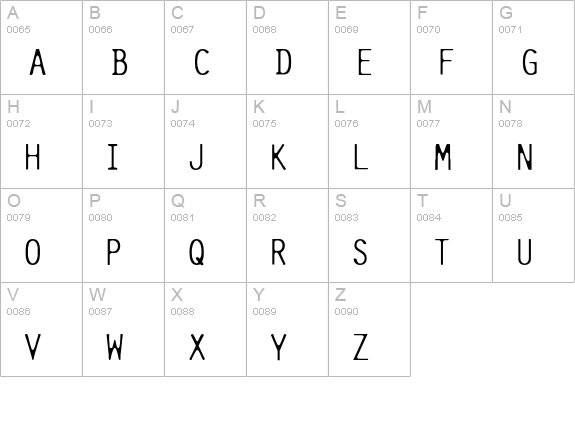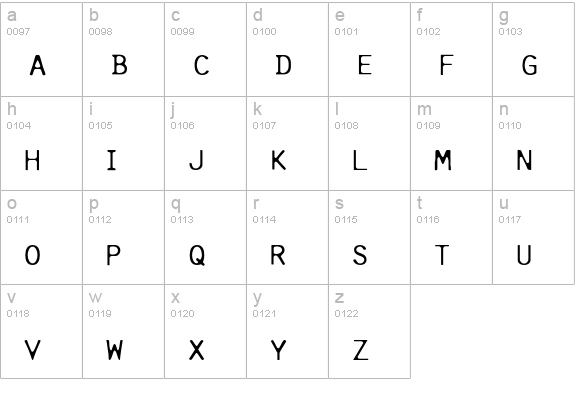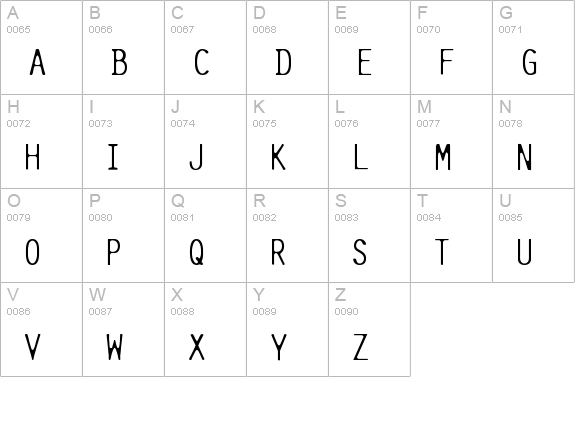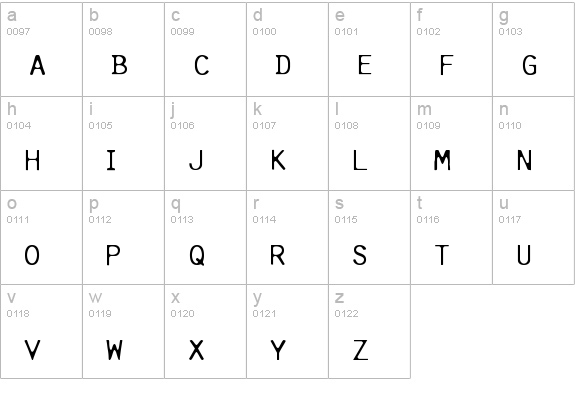
Pure-LightCap Font Details
Pure-LightCap font is a beautiful and elegant typeface that will add a touch of sophistication to your designs. Its clean lines and delicate curves make it perfect for a wide range of projects, from branding to invitations to packaging. The light weight of the font gives it a modern and airy feel, making it ideal for creating a sense of lightness and simplicity in your designs. One of the best things about Pure-LightCap font is that it is completely free to download. You can easily access this stunning typeface at FontsMarket.com, where you can freely download and use it in your personal and commercial projects. With its timeless appeal and versatility, Pure-LightCap font is sure to become a staple in your font collection.